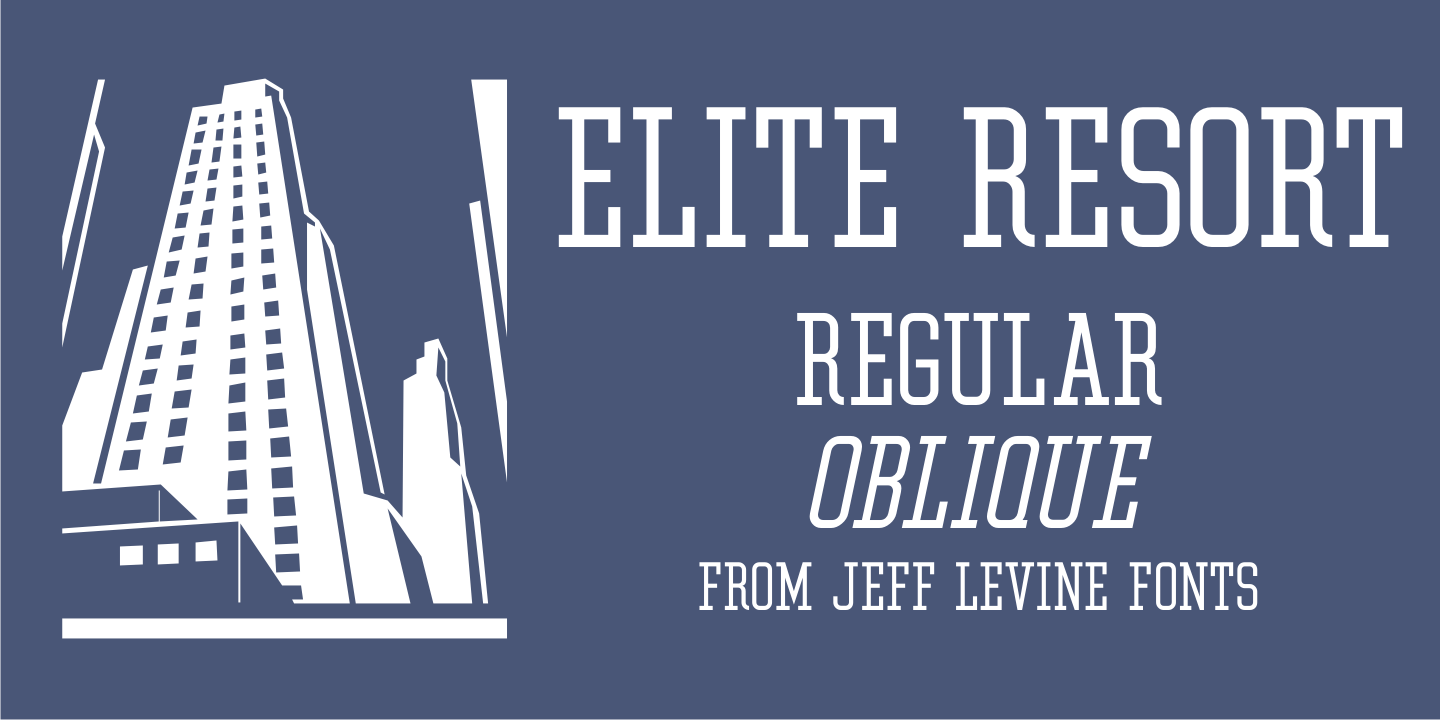
Elite Resort
A 1940s sheet music edition of an early 1900s song entitled 'You Taught Me How to Love You, Now Teach Me to Forget” was set in a popular metal type slab serif face.
It is presented digitally as Elite Resort JNL, in both regular and oblique versions.